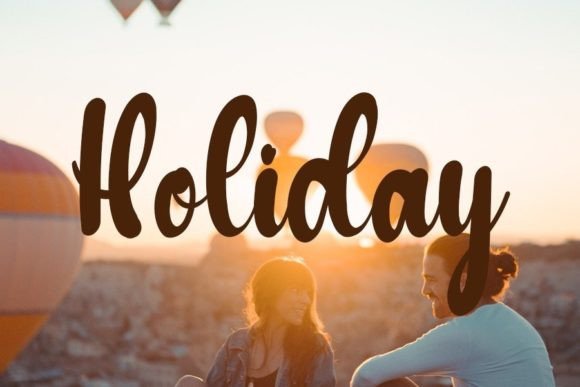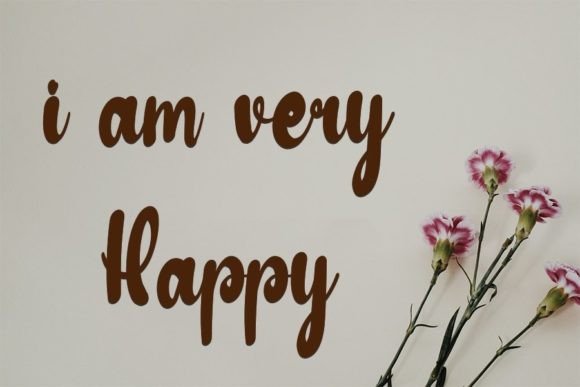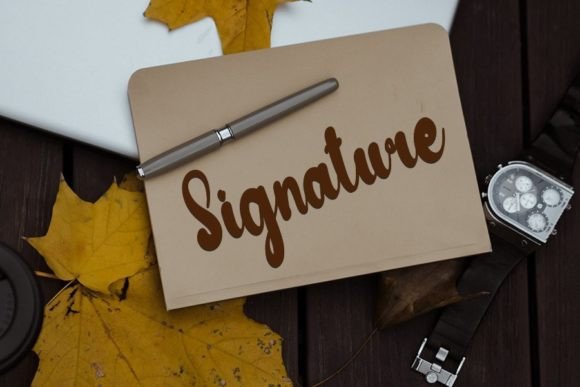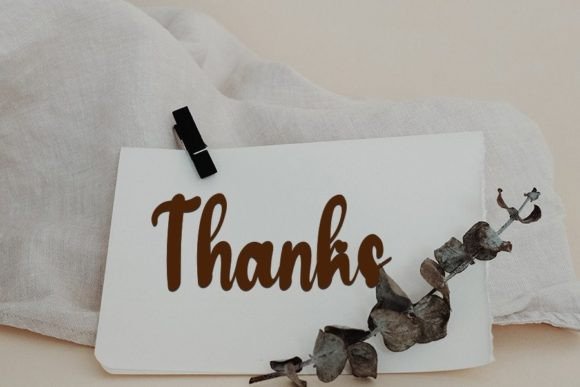
The Festival Font: A Timeless Beauty for Your Design Projects
Have you ever been in the middle of a design project, and suddenly, you’re stuck on finding the perfect font? I recall a recent experience where I was working on a branding project for a client, and I just couldn’t seem to find a font that captured the essence of their brand. That’s when I stumbled upon the Festival font, and it completely transformed my design. In this article, I’ll share my love for this beautiful handwritten font, its features, and how to make the most of it in your designs.
A Personal Love Affair with Festival Font
Festival is a neat and beautiful handwritten font described by a bold touch, perfect for your favorite projects. Fall in love with its incredibly distinct and timeless style, and use it to create spectacular designs! The moment I laid eyes on it, I knew I had found something special. The bold yet elegant strokes, the flowing connections, and the whimsical charm – it was love at first sight! ✨
- ✅ The bold touch adds a level of sophistication to any design
- ✨ The flowing connections create a beautiful, cohesive look
- 🎨 The whimsical charm adds a touch of personality to your designs
- 🖌️ The font is incredibly versatile, suitable for a wide range of projects
While Festival font is an amazing addition to any design project, there are a few things to keep in mind: ⚠️ The font can be a bit overpowering if not used thoughtfully, and some of the letters may not be suitable for body text. 🤔
- Experiment with OpenType features, such as glyphs and stylistic alternates, to add more personality to your text
The Designer Inspiration Behind Festival Font
The story behind Festival font is one of passion and creativity. According to its creators, the font was inspired by the beauty of handwritten scripts and the elegance of traditional typography. The goal was to create a font that would capture the essence of a bygone era while still feeling modern and fresh.
| What makes Festival font unique? | Festival font is unique due to its bold touch, flowing connections, and whimsical charm. |
| Is Festival font suitable for body text? | While Festival font is beautiful, it may not be the best choice for body text due to its bold nature. |